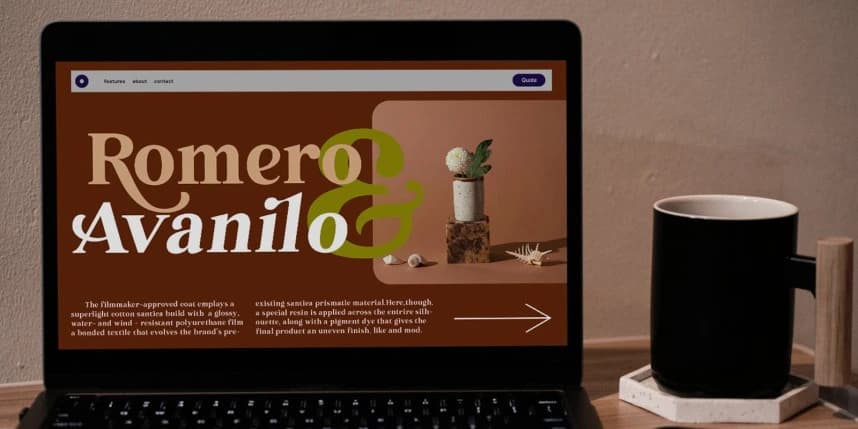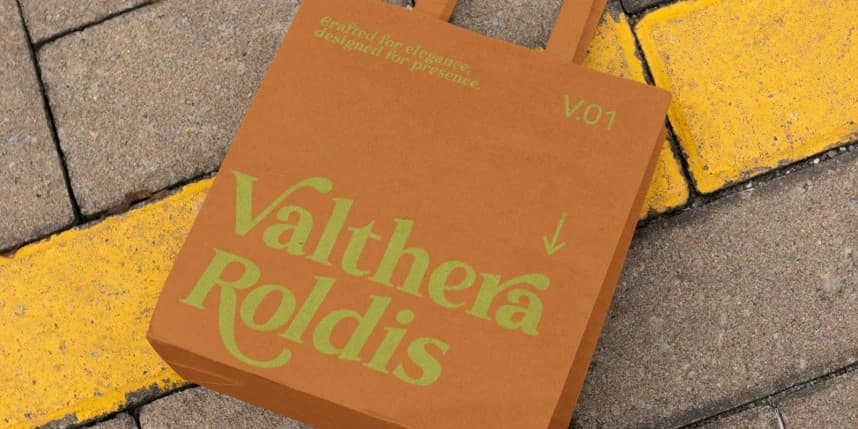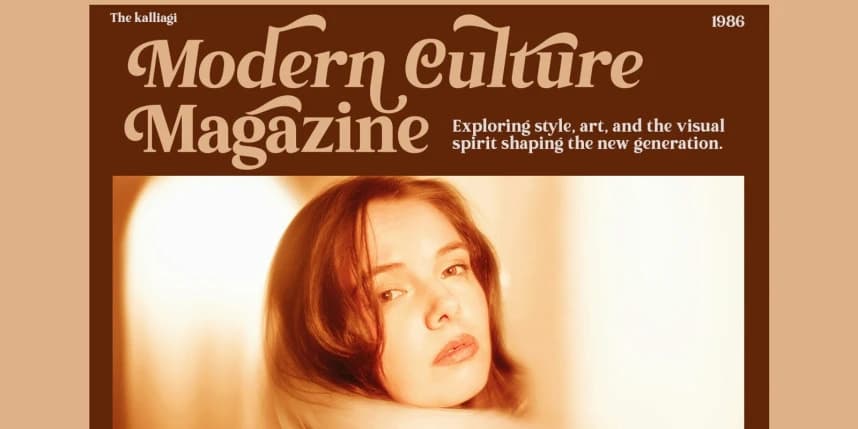
The Kalliagi Font
The Kalliagi Font is a serif font with a luxurious, elegant, modern, unique, and classy look. This font is specifically designed for luxury-themed projects, branding projects, magazines, social media, logos, website headers